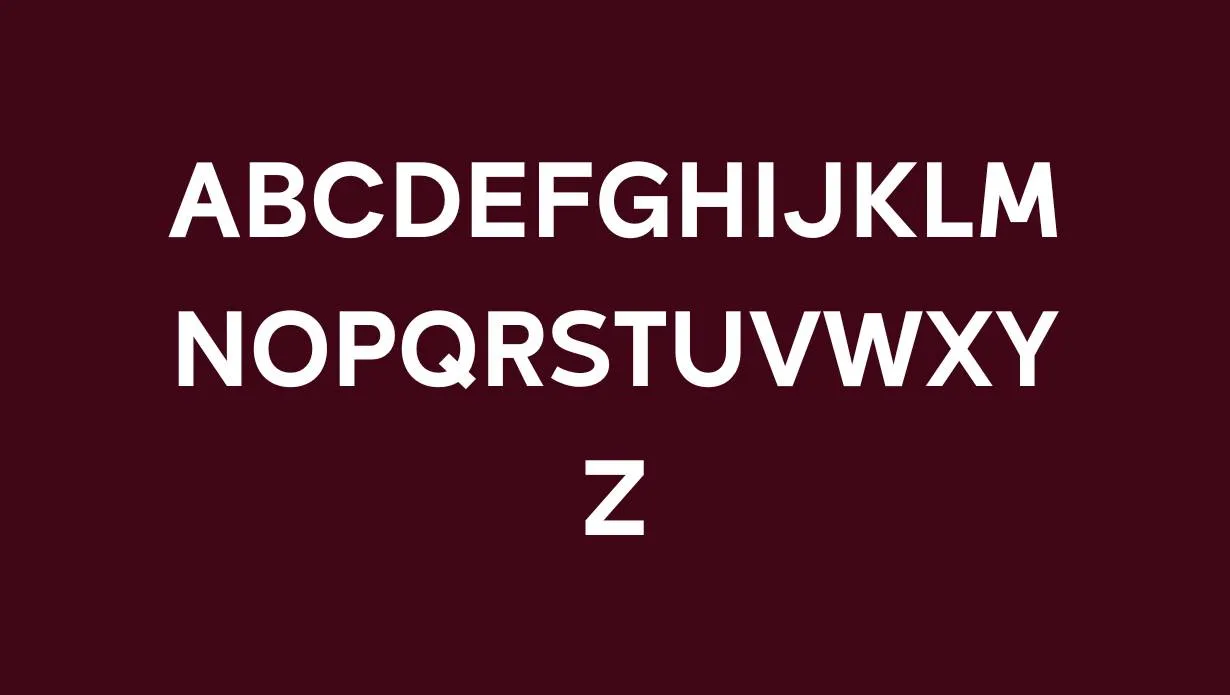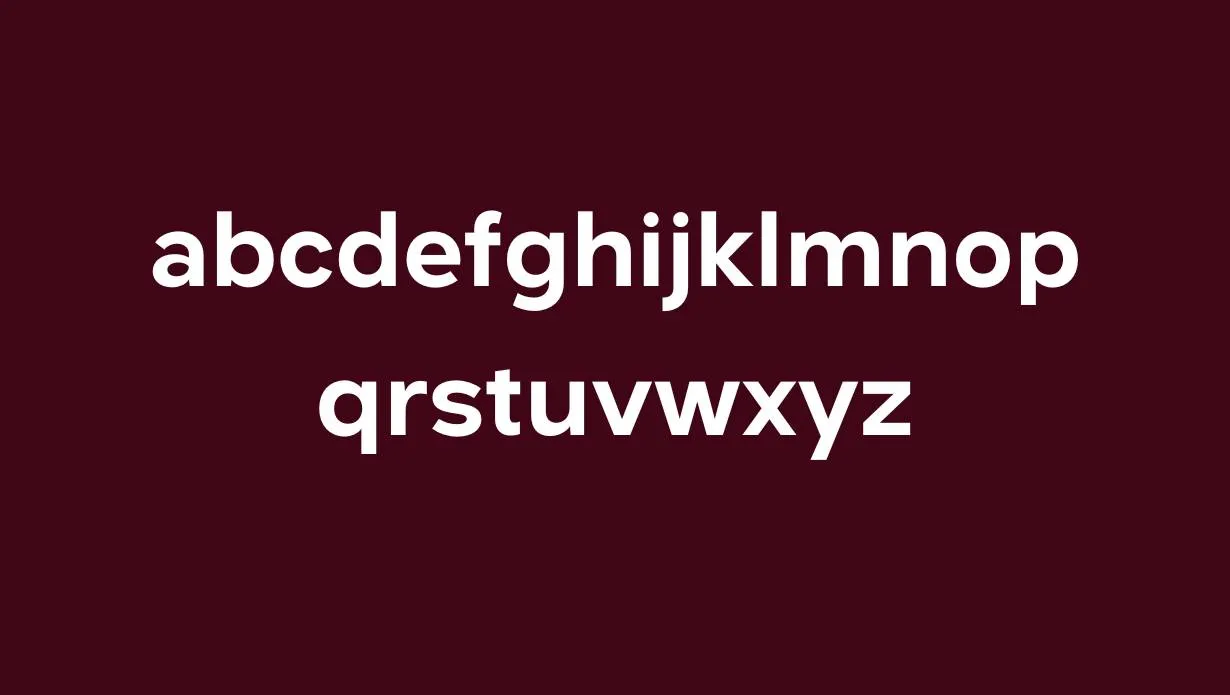
About Delecta Font
Delecta is a contemporary geometric sans-serif typeface that combines mathematical precision with aesthetic elegance. Designed with perfect proportions and modernist principles, this font offers exceptional readability while maintaining a distinct visual character that works beautifully for both display and text settings.
With its carefully calibrated geometry and subtle humanist touches, Delecta achieves a harmonious balance between technical precision and visual warmth. The font features geometric construction with optical corrections, making it both mathematically precise and visually pleasing for extended reading.